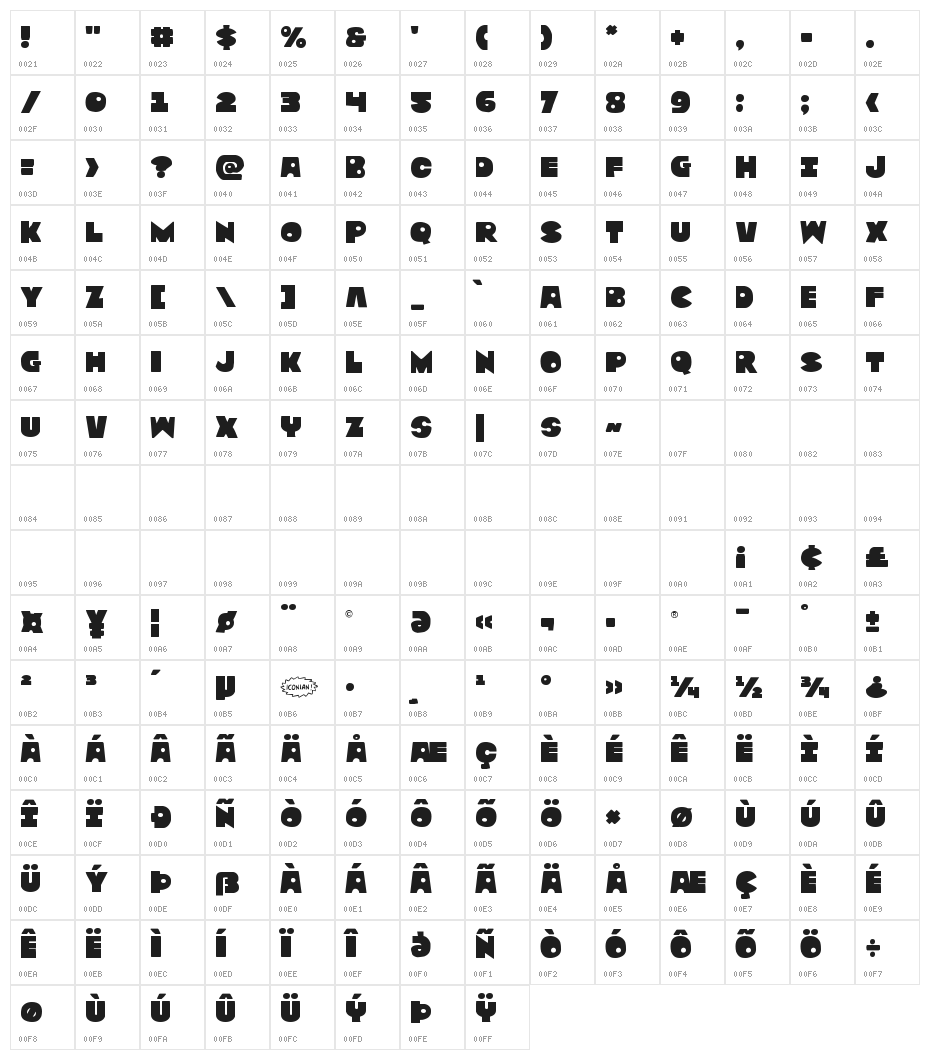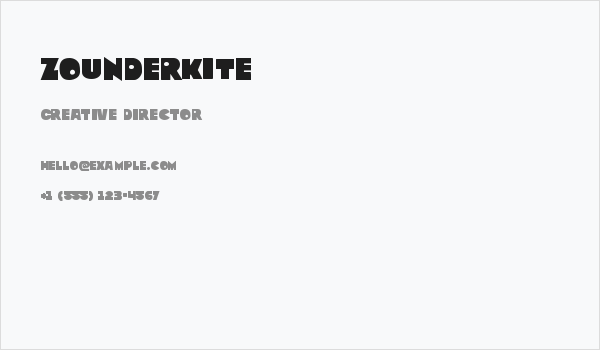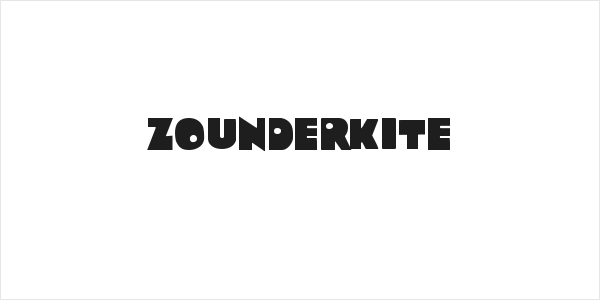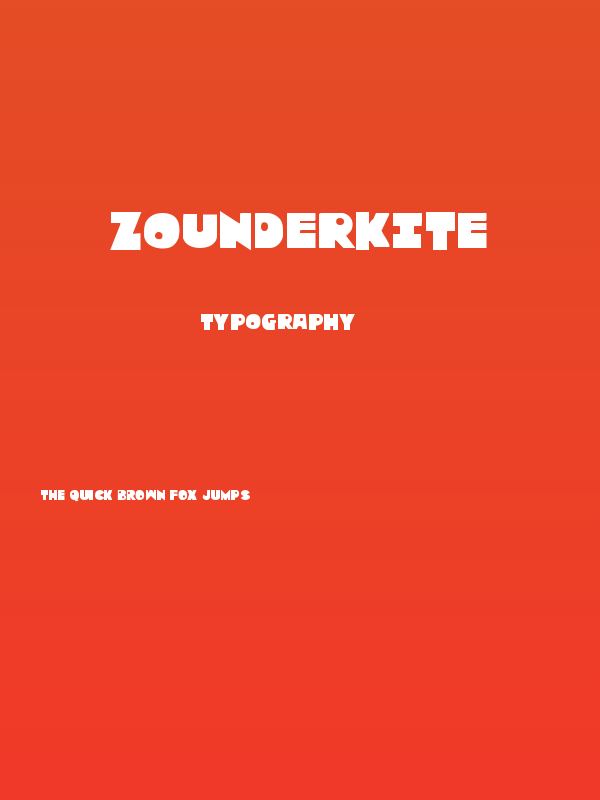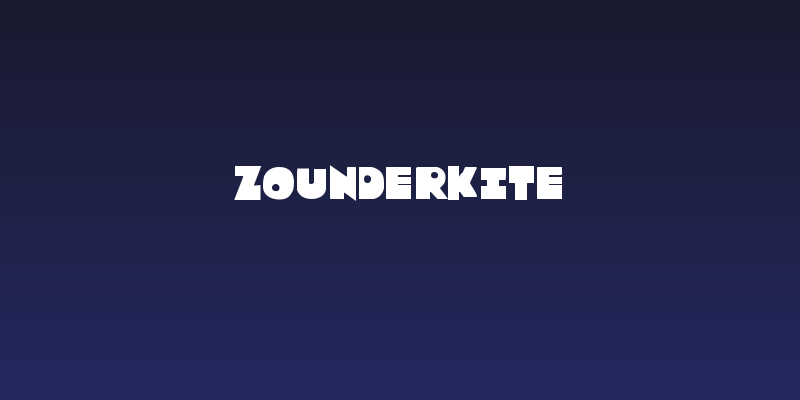
Zounderkite Font
Zounderkite Description
This font features a bold and playful design with a distinct geometric style. The characters are heavily rounded, giving them a soft and approachable appearance. The uppercase and lowercase letters maintain a consistent weight, creating a uniform look across the board. The numbers and special characters follow the same design principles, ensuring cohesion throughout. This font's unique style makes it stand out, with its thick strokes and minimal contrast, emphasizing its decorative nature.
| Overall Style | Playful, Modern |
| Proposed Projects | Ideal for children's books, playful branding, posters, and creative projects requiring a fun and bold typeface. |